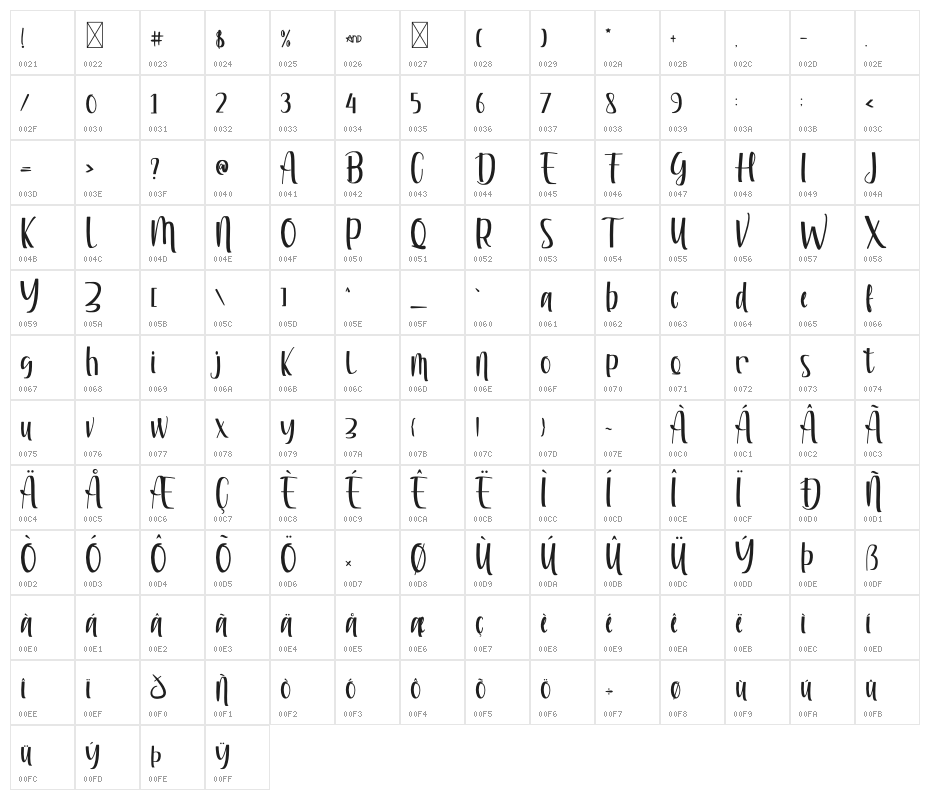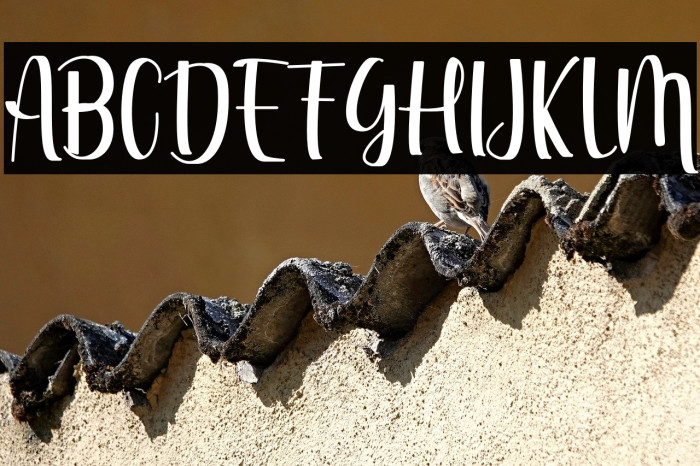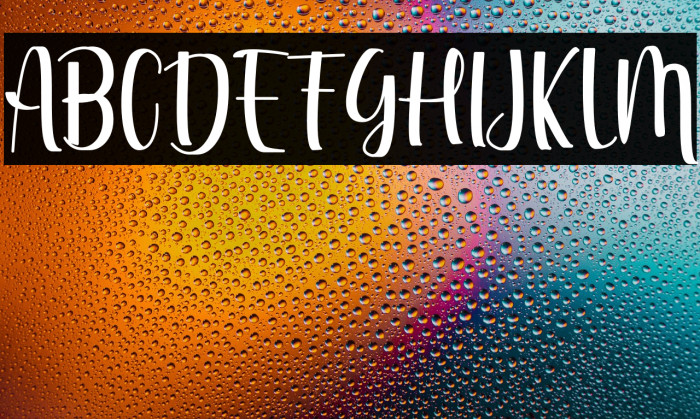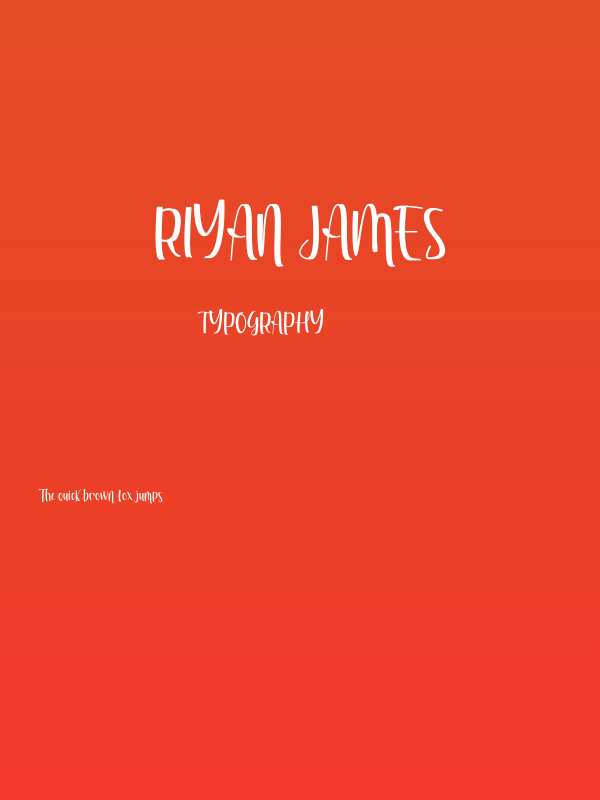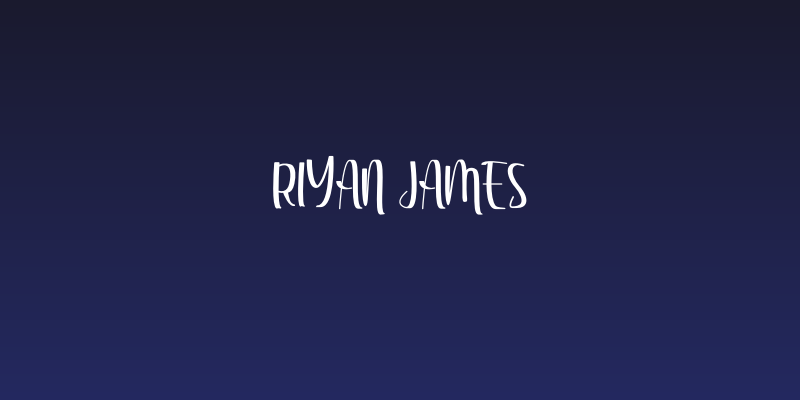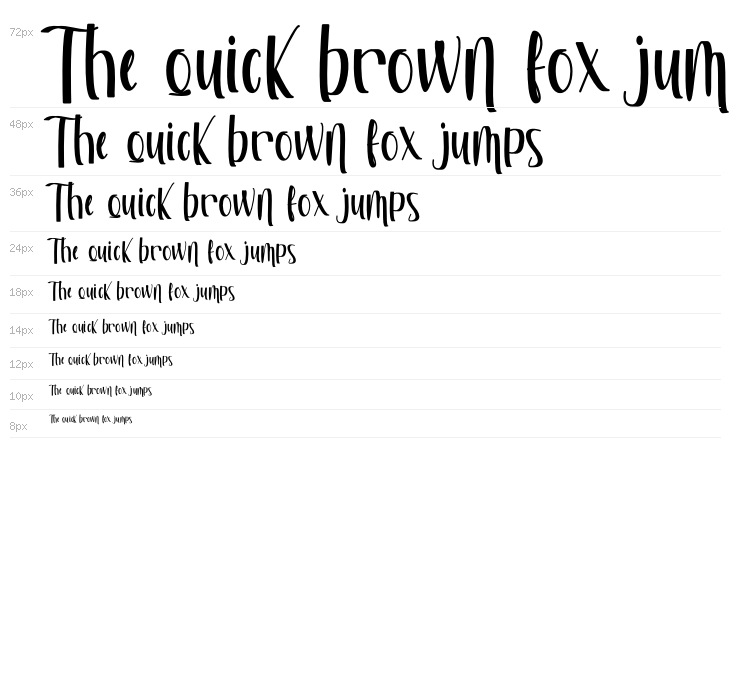
Riyan James Font
Riyan James Description
This font features a playful and artistic style with a handwritten flair. The characters are tall and slightly condensed, with a whimsical touch that adds personality to each letter. The strokes vary in thickness, creating a dynamic and lively appearance. The uppercase letters are bold and expressive, while the lowercase letters maintain a consistent flow, enhancing readability. The numbers are well-proportioned, and the special characters are creatively designed to match the overall aesthetic. This font is perfect for projects that require a touch of creativity and individuality.
| Proposed Projects | Ideal for creative projects such as greeting cards, invitations, posters, and branding materials that require a unique and artistic touch. |